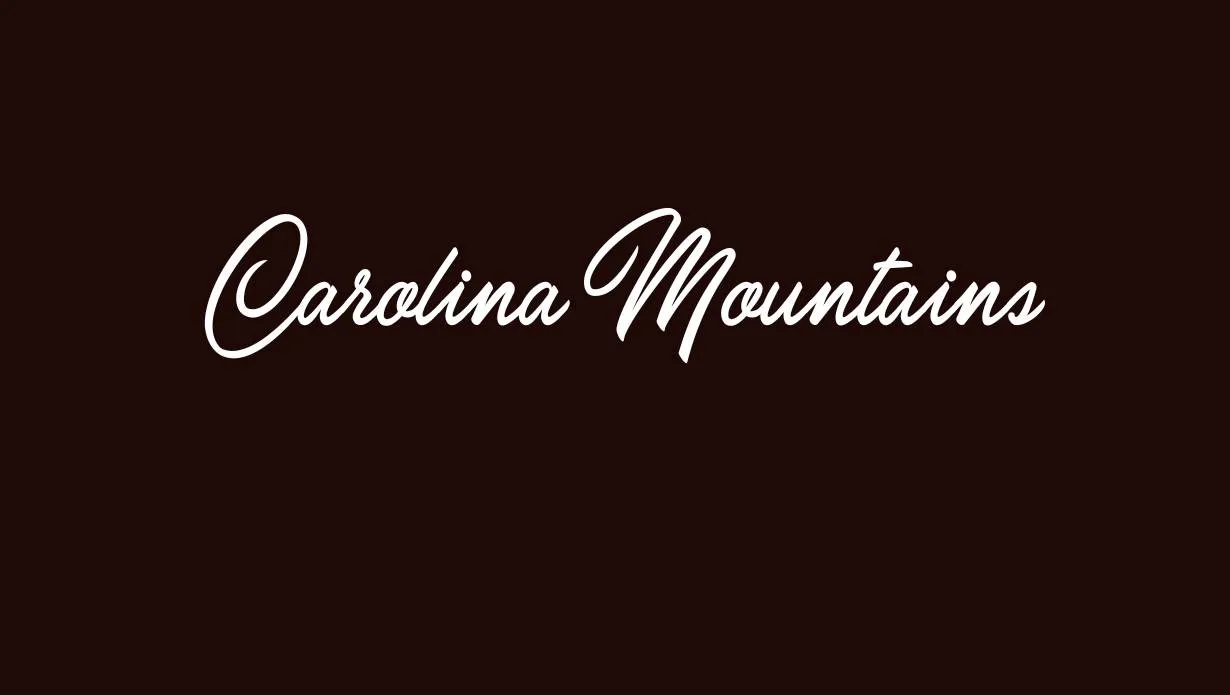
Carolina Mountains Font features a rugged and adventurous design, perfect for projects focused on nature, hiking, and mountain themes.
Its decorative elements add a touch of rugged charm and authenticity to your designs, often seen in outdoor and adventure-themed projects.
| Name | Carolina Mountains Font |
| Designer | Billy Argel Fonts |